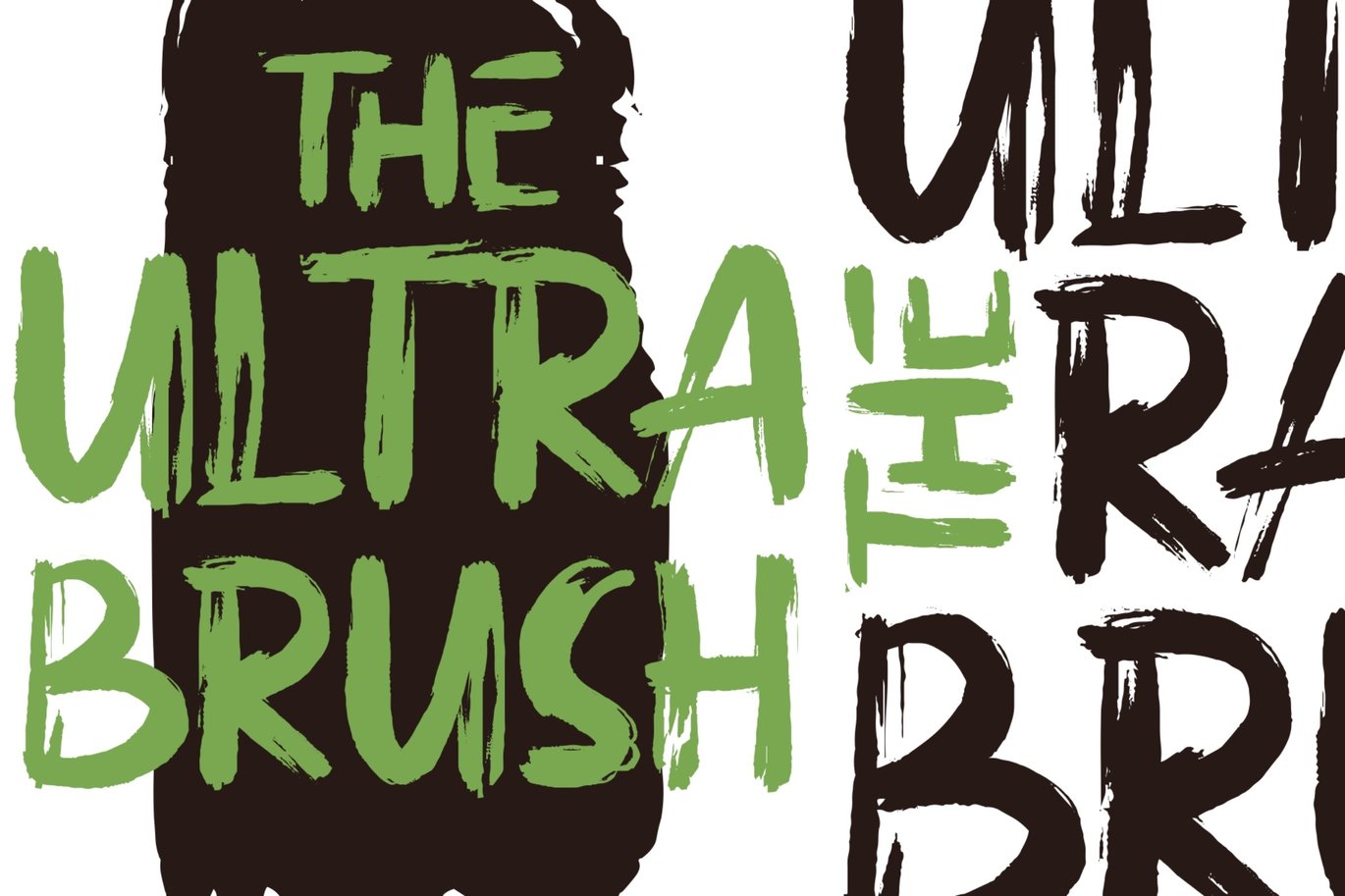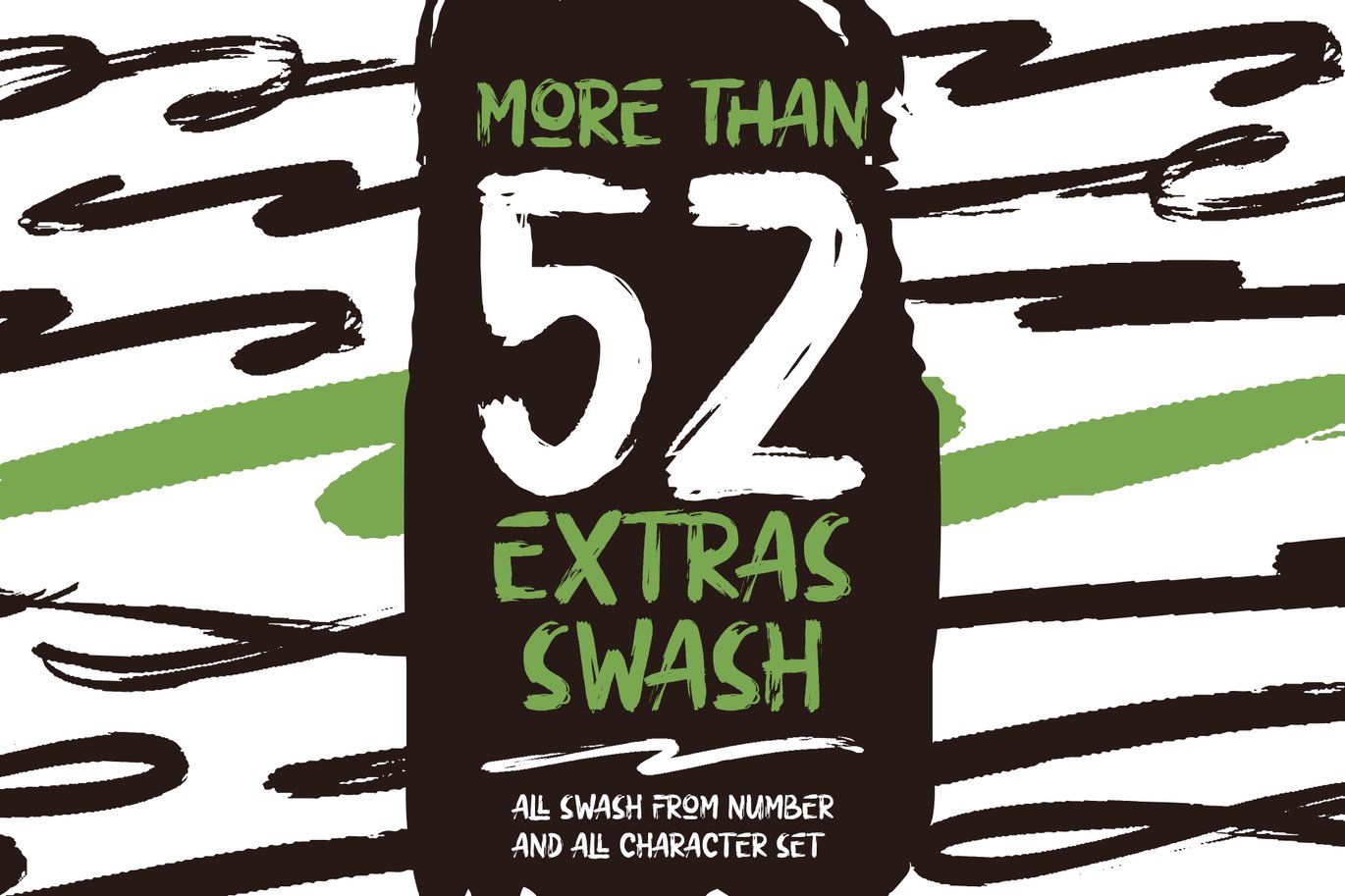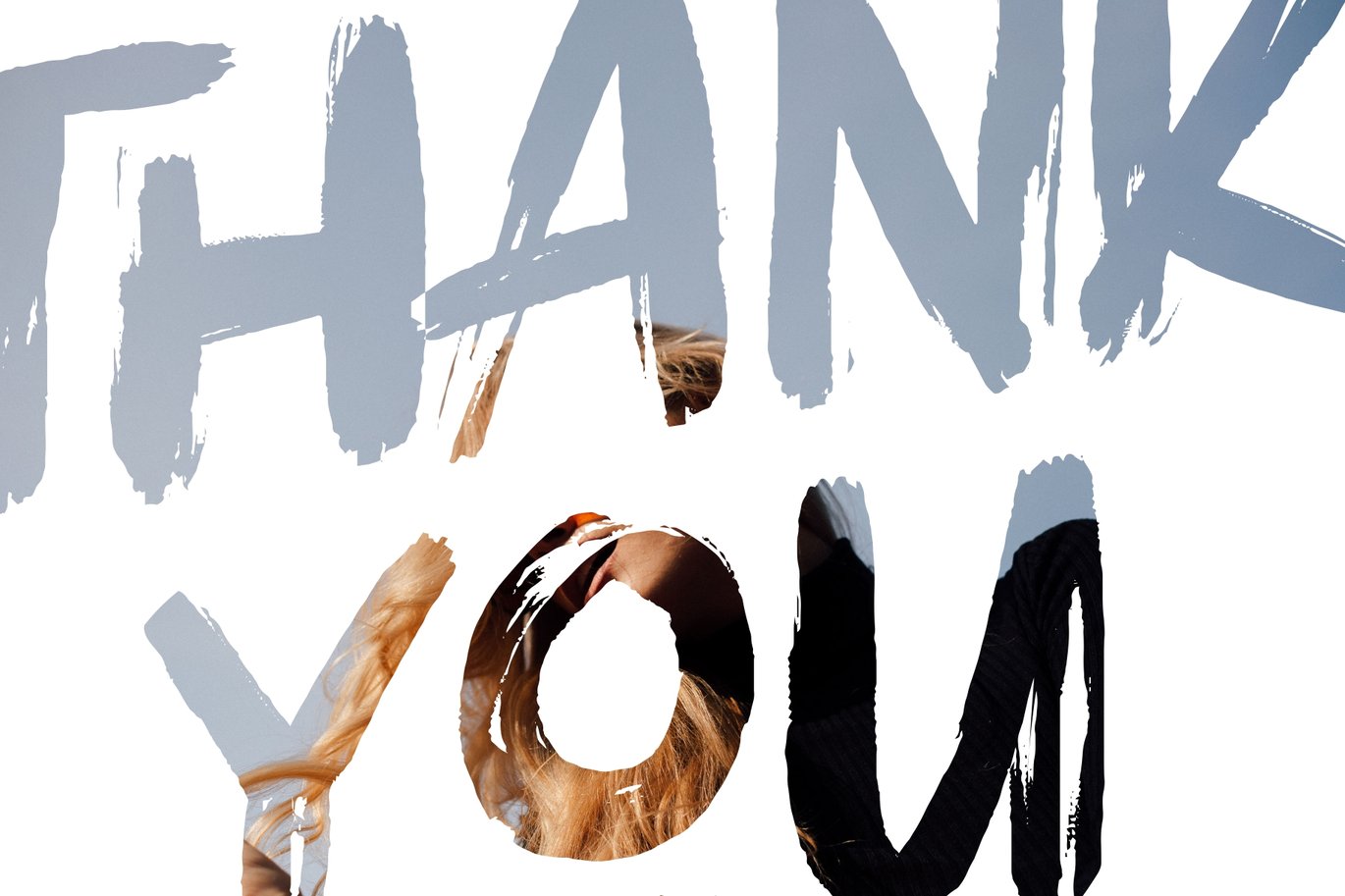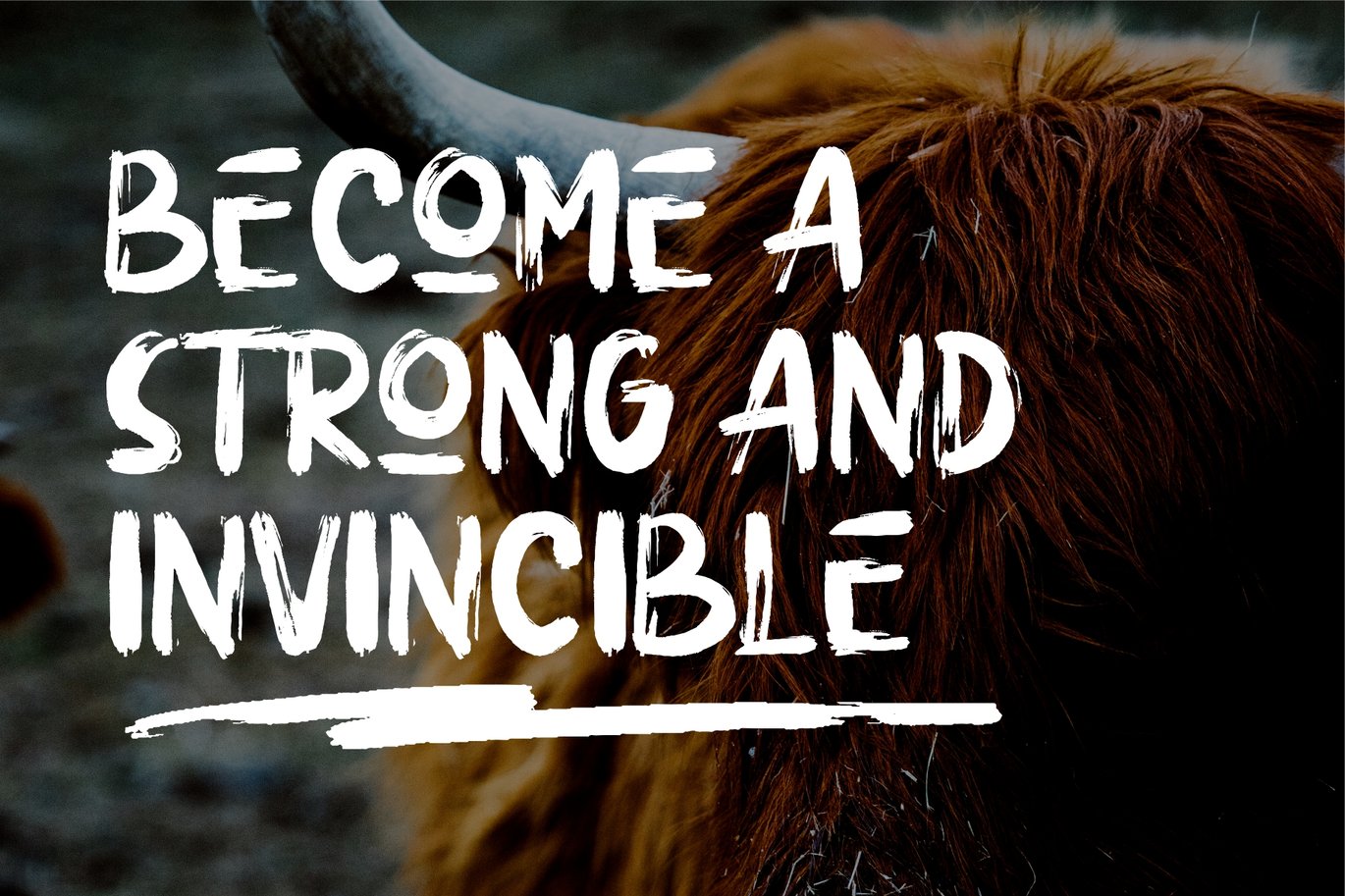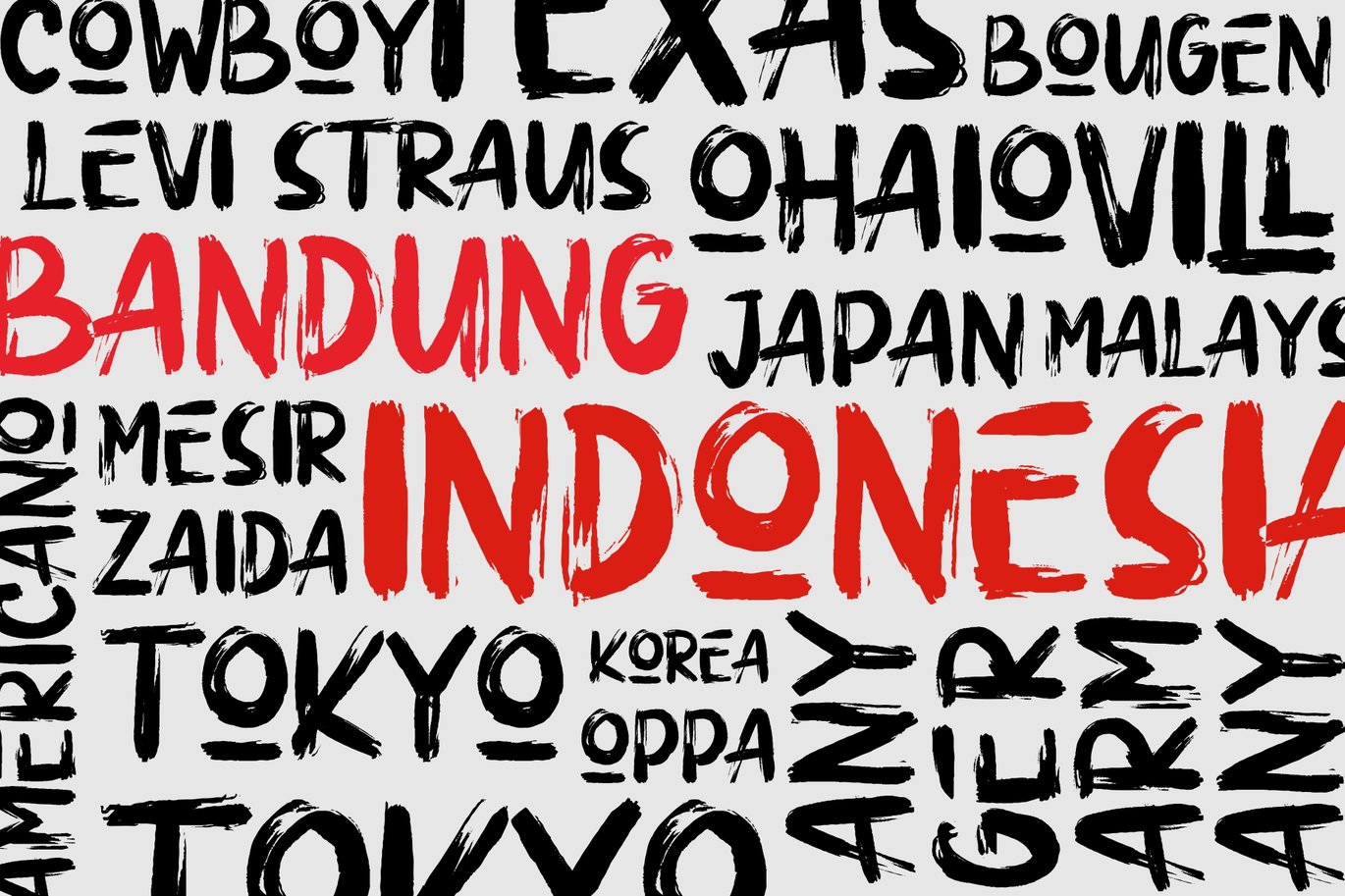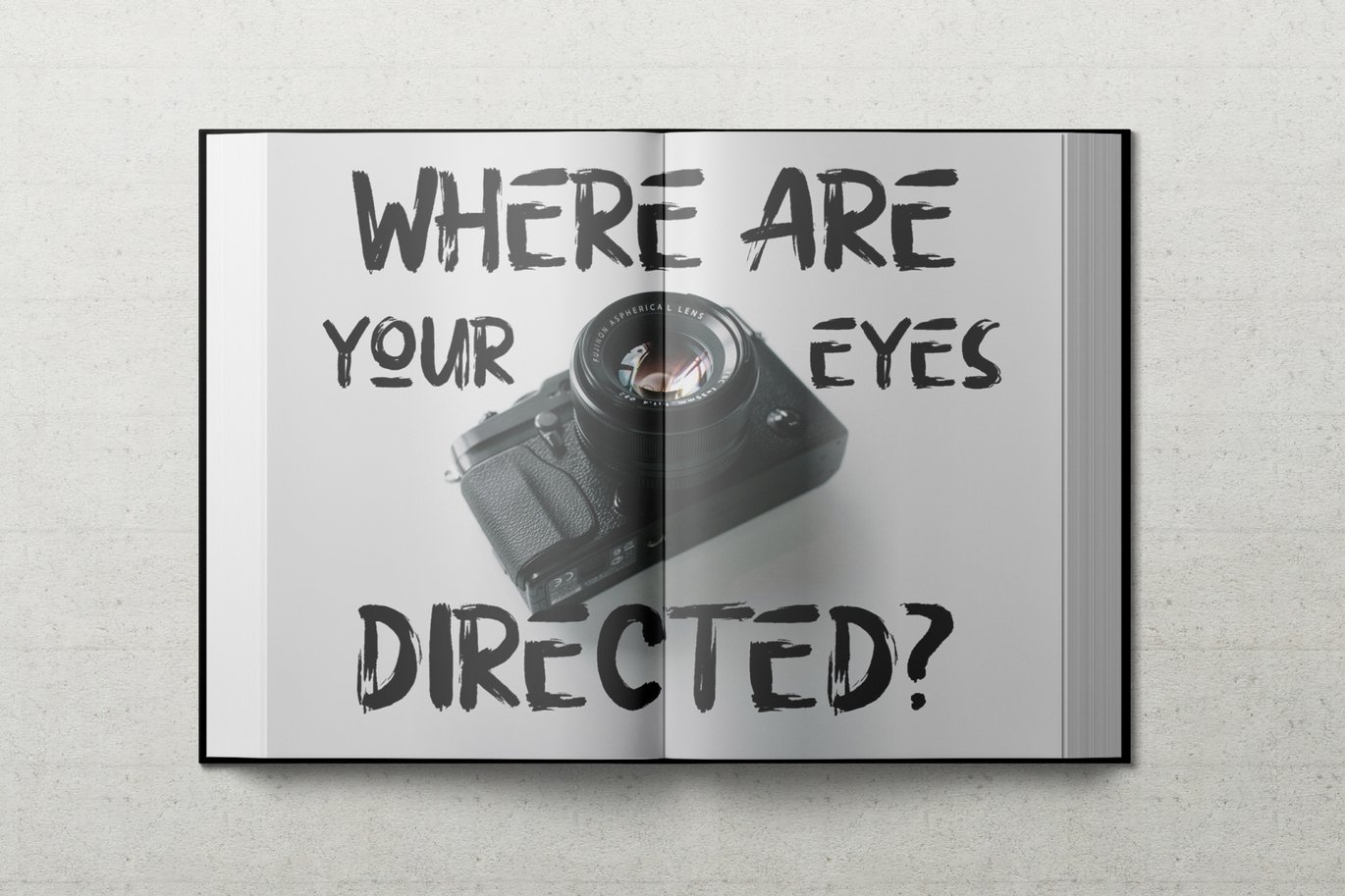
Ultra Brush | Handbrush Font
ULTRA BRUSH was born from the interest of the maker of display fonts that are currently present. By using a natural dry brush, Ultra Brush was born to meet the needs of designers to make posters, t-shirts, quotes, branding, packaging, logos, advertise, and etc.
EXTRAS 50 is more a swash style with a dry brush!
- Support 20 languages and Multilanguage
- More +50 swash styles
- Ligature Support